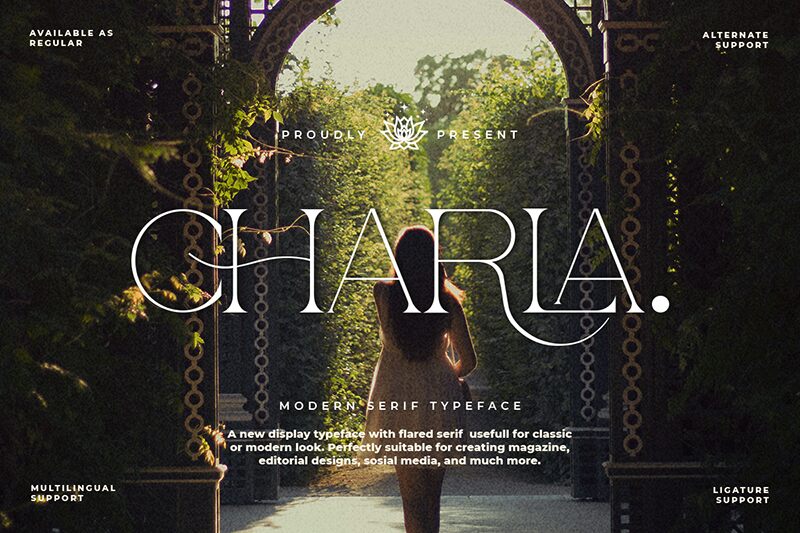
Charla font by Kong Font is a versatile serif font with an elegant and sophisticated look. This free font presents a refined and classic yet contemporary feel characterized by a subtle flair that fits a range of creative design themes. With its modern touch and powerful build, this font gives you the luxury and elegance you’re looking for in titles, headers, paragraphs, and even project headlines.
The right font is essential for customer engagement which is why readability and aesthetic are key aspects. Use Charla for magazines, websites, or blogs, especially those with themes focused on editorial and fashion, or used for alluring posters and ads.
It can also highlight the beauty and originality of invitations, especially those created for a special day, greeting cards, or even business cards presented by a corporation with a strong and modern identity.